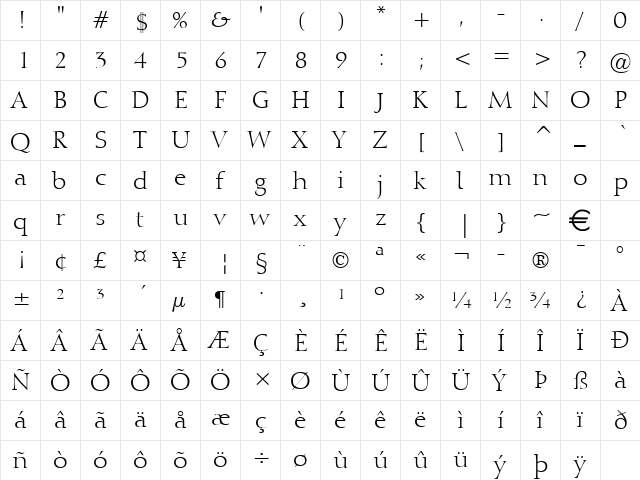
Cally721 Normal
Design Context for Cally721 Typeface
Cally721 takes a measured approach to typography — its balanced proportions and neutral character make it a reliable workhorse for both digital and print work.